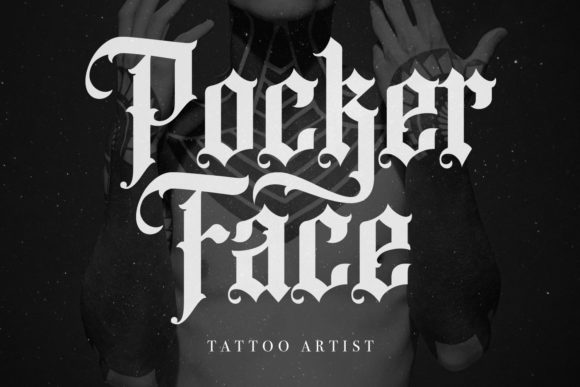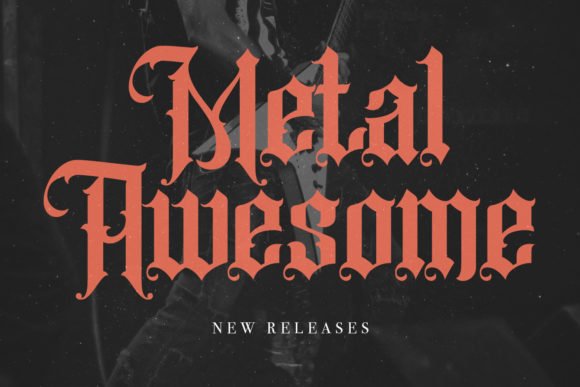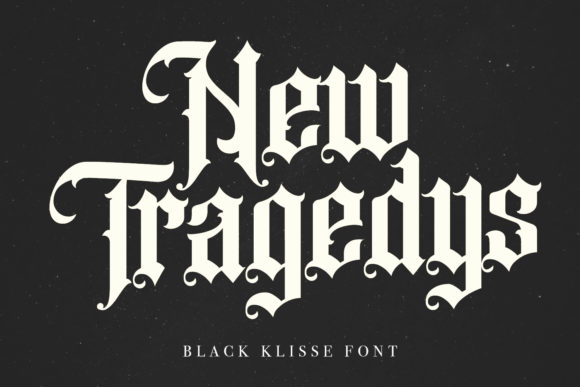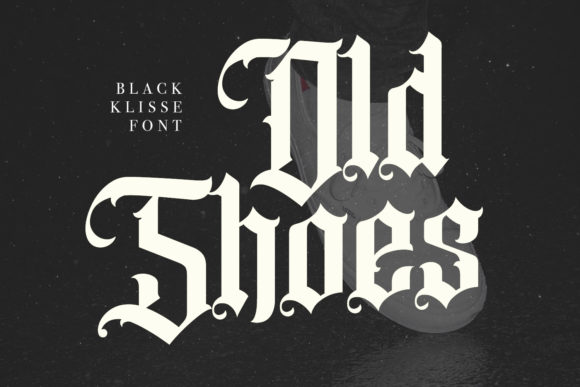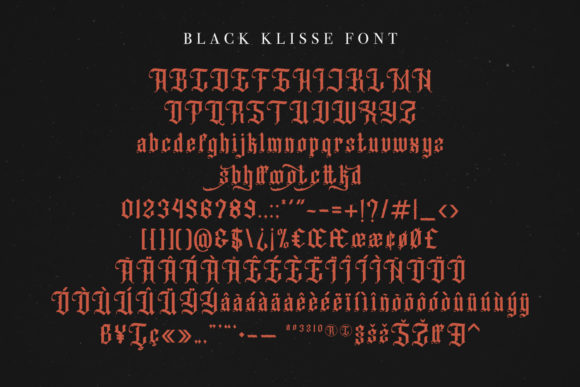
Introducing Black Klisse Font: The Ultimate Bold Blackletter Font for Classic Designs
In the world of typography, blackletter fonts have always been a popular choice for designers looking to add a touch of elegance and sophistication to their designs. One such font that has been making waves in the design community is Black Klisse, a bold and authentic blackletter font that is ideal for creating classic designs. In this article, we’ll take a closer look at Black Klisse, its features, and how it can elevate your design game.
What is Black Klisse Font?
Black Klisse is a bold and authentic blackletter font that boasts a dramatic style, perfect for adding a touch of drama to your designs. Its unique and intricate lettering style is reminiscent of traditional blackletter fonts, but with a modern twist that makes it stand out from the crowd. Whether you’re a designer, crafters, or simply someone who loves typography, Black Klisse is a font that is sure to impress.
Key Features of Black Klisse Font
So, what makes Black Klisse font so special? Here are some of its key features:
- Bold and Authentic Blackletter Style: Black Klisse font features a bold and authentic blackletter style that is perfect for creating classic designs.
- Dramatic Style: The font’s dramatic style adds a touch of elegance and sophistication to your designs, making it perfect for creating eye-catching headlines and titles.
- Intricate Lettering: The font’s intricate lettering style is made up of complex strokes and flourishes that give it a unique and distinctive look.
- Versatile: Black Klisse font is versatile and can be used for a variety of design projects, from logos and branding to posters and packaging.
How to Use Black Klisse Font in Your Designs
Now that we’ve covered the features of Black Klisse font, let’s talk about how to use it in your designs. Here are some tips:
- Pair it with a Simple Font: Black Klisse font is bold and dramatic, so it’s best to pair it with a simple font to create contrast and balance in your design.
- Use it for Headlines and Titles: The font’s bold and dramatic style makes it perfect for creating eye-catching headlines and titles.
- Experiment with Different Colors: Black Klisse font looks great in a variety of colors, so don’t be afraid to experiment and find the perfect color scheme for your design.
- Use it for Logos and Branding: The font’s unique and distinctive style makes it perfect for creating logos and branding materials that stand out from the crowd.
Benefits of Using Black Klisse Font
So, what are the benefits of using Black Klisse font in your designs? Here are a few:
- Adds Elegance and Sophistication: The font’s bold and dramatic style adds a touch of elegance and sophistication to your designs.
- Creates Contrast: The font’s unique and distinctive style creates contrast and balance in your design, making it more visually appealing.
- Perfect for Classic Designs: Black Klisse font is ideal for creating classic designs that require a touch of drama and elegance.
- Increases Readability: The font’s bold and clear style makes it easy to read, even at small sizes.
In conclusion, Black Klisse font is a bold and authentic blackletter font that is perfect for creating classic designs. Its dramatic style, intricate lettering, and versatility make it a great choice for designers, crafters, and anyone who loves typography. Whether you’re looking to add a touch of elegance and sophistication to your designs or simply want to create eye-catching headlines and titles, Black Klisse font is a great choice. So why not give it a try and see how it can elevate your design game?